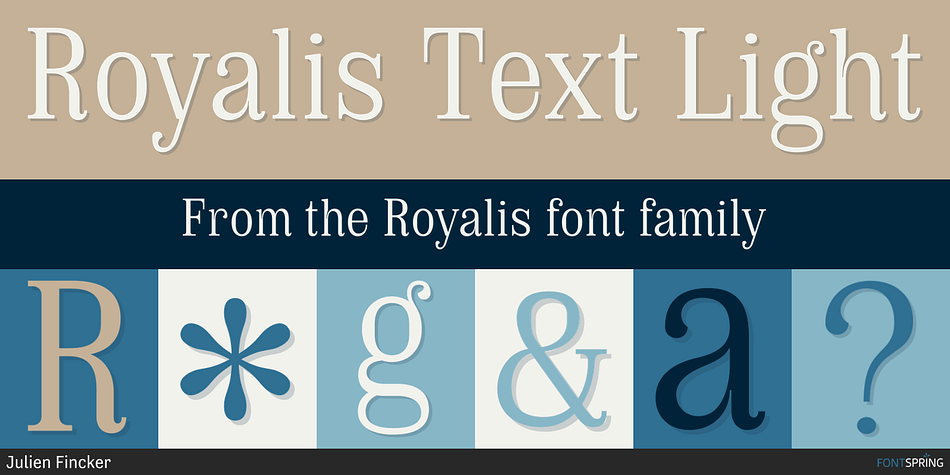
Royalis Text Light
Royalis is a serif font family. This typeface has thirty-two styles and was published by Julien Fincker.
About Royalis:
Royalis is an expressive and extravagant serif typeface family. It is characterized by a high contrast and dynamic features in the details, such as long terminals or deep inktraps. Royalis is available in three versions: a display version in six weights, a corresponding condensed version also for display applications, and a text version for body text in four weights. It also comes with all the corresponding italics. This makes Royalis versatile, especially for editorial, packaging, branding and advertising.
The wide range of weights and possibilities allows Royalis to be used variably. The thinner weights are characterized by their elegance, while the thicker weights captivate with their powerful contrast. They complement each other like the three musketeers once did. Be it the charmingly elegant Aramis, the sober strategist Athos, the powerful ruffian Porthos or the charismatic d’Artagnan, who led the group.
The Royalis family has a total of 32 weights, from extralight to black with matching italics, as Display, Display Condensed and Text versions. With over 1027 characters, it covers more than 200 Latin-based languages, with a whole range of Open Type features. There are alternative characters as stylistic sets, small caps, automatic fractions - just to name a few.
Arrows and numbers:
In particular, the extensive selection of arrows and numbers should be mentioned here. Thanks to Open Type features and a simple system, the various designs of arrows and numbers can also be easily “written” without first having to select them in a glyph palette.